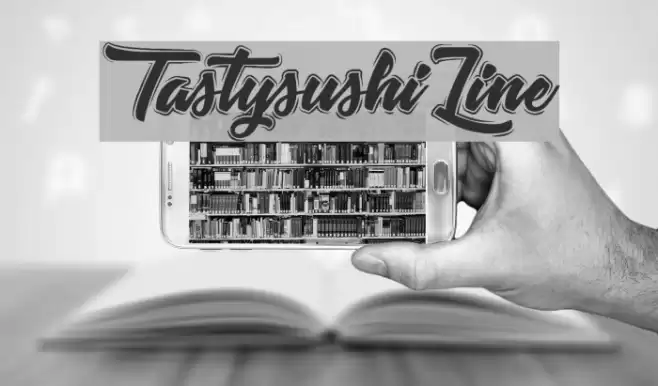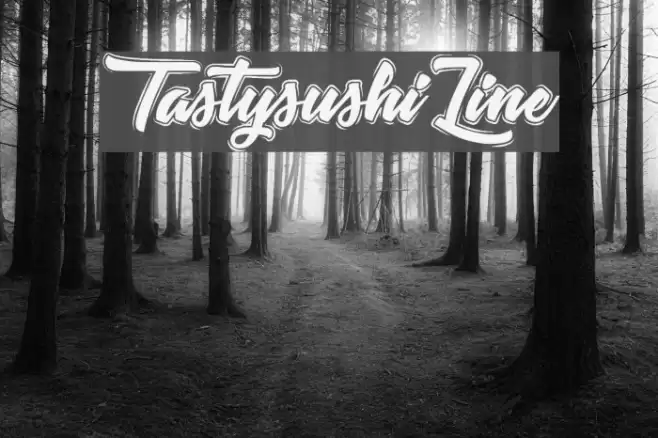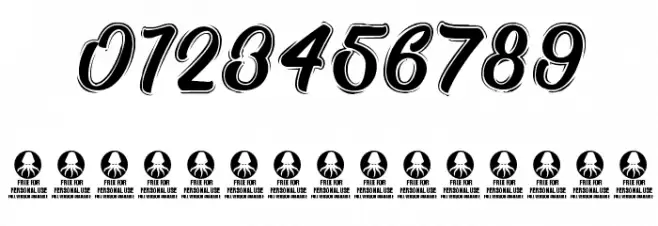
TastysushiLine Font
TastysushiLine Description
This font features a bold, cursive style with a strong presence. The letters are interconnected, creating a fluid and dynamic appearance. The strokes are thick and consistent, with a slight slant that adds to the sense of motion. The uppercase letters are ornate, with flourishes that enhance their decorative appeal. The lowercase letters maintain the same cursive flow, ensuring readability while retaining elegance. Numbers are equally stylized, fitting seamlessly with the overall design. This font is ideal for projects that require a touch of sophistication and flair.
A bold, cursive font with interconnected letters and decorative flourishes from Uncategorized fonts.